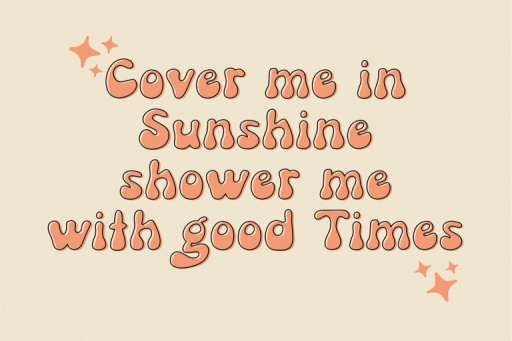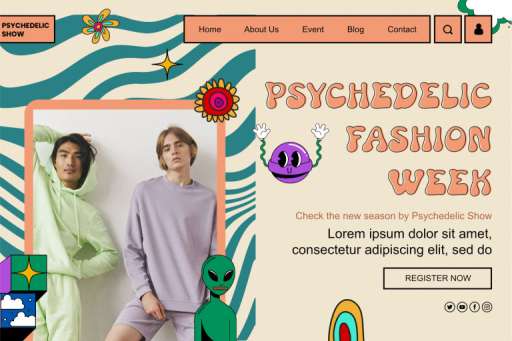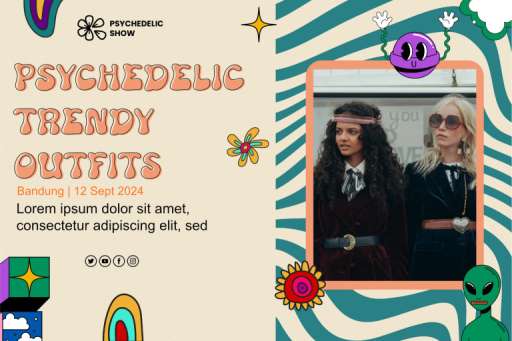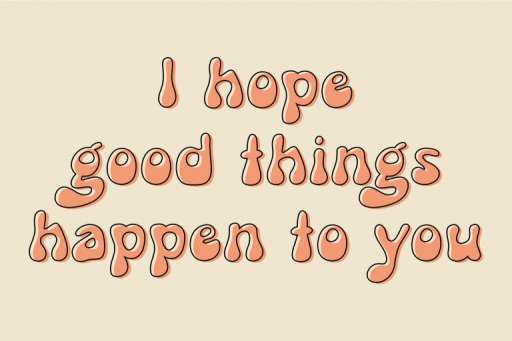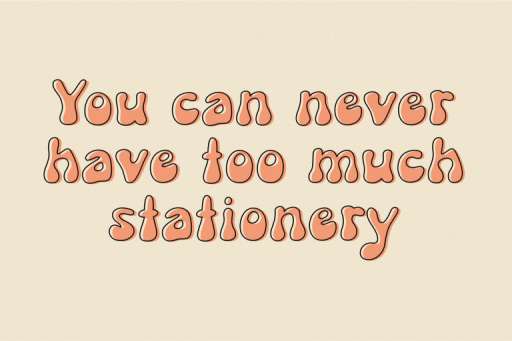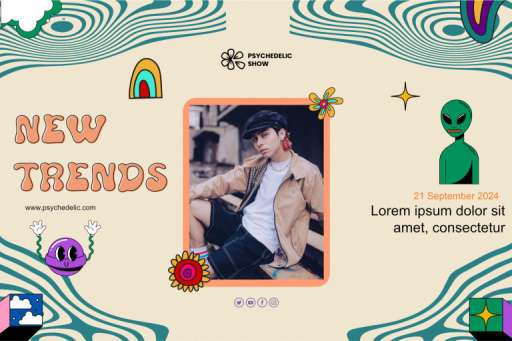
Flabbio Groovy – Retro Groovy Font from Jimtype Studio
This is the Flabbio Groovy font. With an aesthetic shape that fits all your design needs. No matter the topic, this font will be an incredible asset to your fonts’ library, as it has the potential to elevate any creation. This font is perfect for making any project like header, quote, layout magazine, and others. Even better if you use it on the 60s and 70s design project